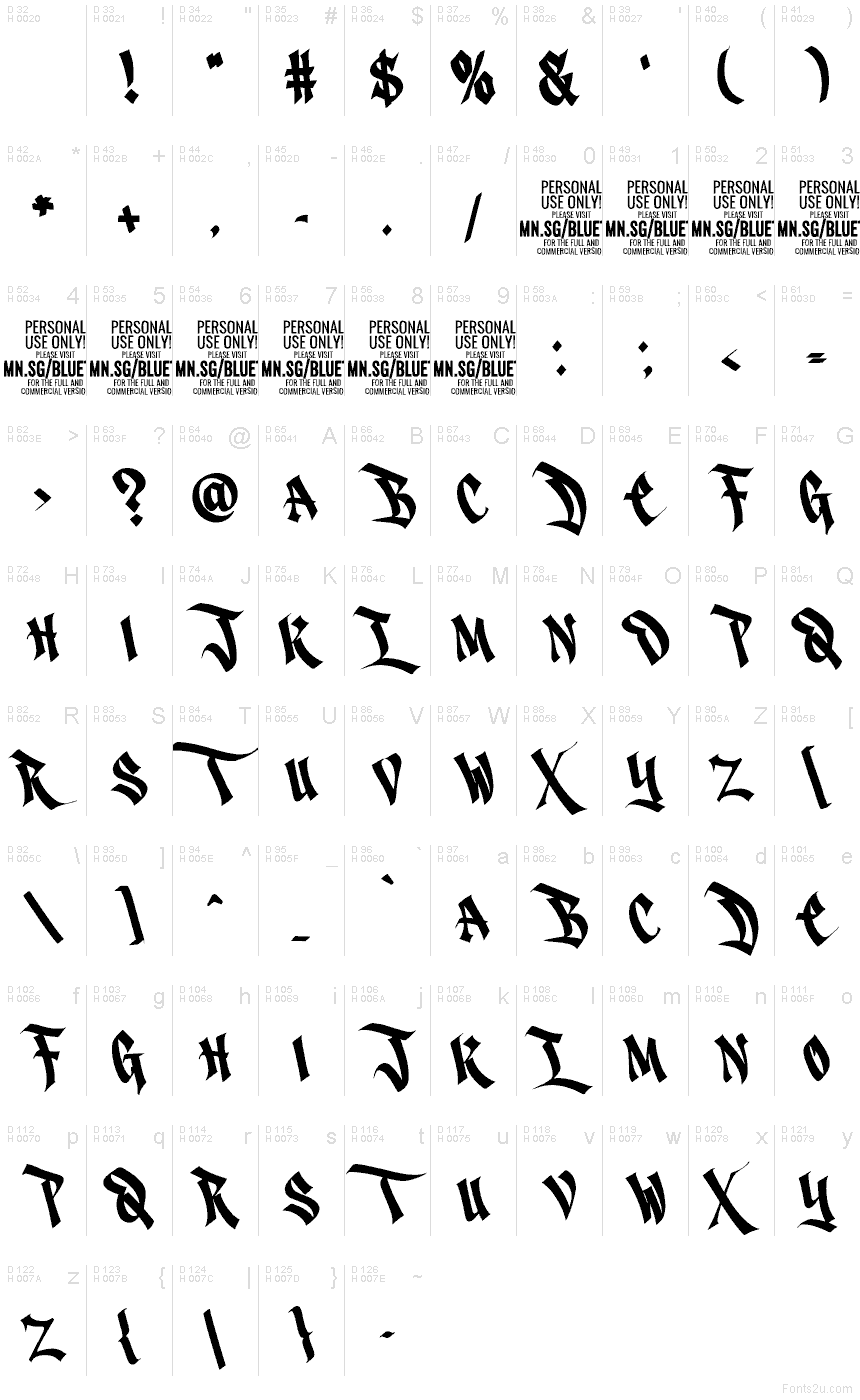
Bluetag PERSONAL USE Bold Italic
Bluetag font by Mans Greback is a free graffiti display font that blends street-tag swagger with chiselled, blackletter-like structure. Its blade-sharp strokes and swooping cuts create dense, high-contrast word shapes that feel fast and deliberate, like fresh ink snapping off a wall. The rhythm is tight and punchy, with bold wedges of negative space that make each word hit hard.
Using Bluetag, headlines carry attitude on posters, album covers, streetwear logos, event flyers, esports branding, and sticker packs. This free font thrives big and bold—give it room to breathe and keep supporting text minimal. For a clean balance, pair it with a neutral sans in all caps and lighter weight.